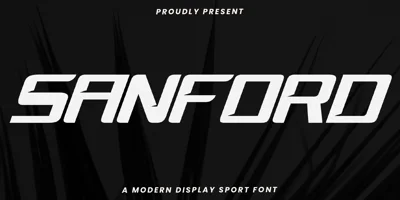
Sanford Font
Sanford Font is perfect for distinguished law firm branding, prestigious academic institution communications, professional medical practice signage, established financial services presentations, traditional corporate headquarters materials, authoritative government documentation, respected consulting firm logos, dignified heritage organization graphics, accomplished professional service marketing, and trustworthy business establishment branding.
What makes Sanford Font so exciting is its extraordinary ability to embody the unwavering reliability and distinguished professionalism that defines America's most trusted institutions through systematically refined letterforms that seem crafted by master typographers who understand that true authority emerges from consistent excellence rather than flashy innovation. This font captures the essence of institutional integrity and professional competence, featuring steadily dignified characters that appear designed to grace the letterheads of establishments that have earned their reputation through decades of faithful service to their communities and unwavering commitment to professional standards. The systematically balanced letter shapes create an atmosphere of established credibility and institutional trust, making every word feel like it carries the endorsement of proven expertise and the promise of reliable service that clients can depend on through changing times and challenging circumstances.
The Sanford Font family includes Light, Regular, Medium, Bold, and Display weights, along with corresponding italic variations and professional decorative elements. Each style maintains the font's distinctive professional character while offering complete versatility for different institutional applications, from subtle legal documentation to commanding corporate headlines that announce the continuation of trusted service and professional excellence.
This distinguished typeface brings authentic institutional professionalism aesthetics to contemporary business projects. The Sanford Font provides designers with an exceptional tool to create memorable brand identities that communicate reliability, professional expertise, and institutional authority. Whether you're developing professional service branding, designing corporate communication materials, or creating established business presentations, this font delivers unmatched credibility and professional appeal.
The expertly crafted letterforms in Sanford Font feature optimal proportions and systematic clarity that ensure perfect performance across all professional applications while expressing the methodical approach and unwavering standards that define successful institutional practice. Each character has been designed to maintain maximum legibility while conveying the substantial reliability and proven competence that separate established professionals from newcomers to their fields. The font's distinctive personality makes it ideal for applications requiring genuine professional authority and institutional credibility.
Professional service and institutional leaders appreciate how Sanford Font effortlessly communicates expertise, reliability, and professional excellence while adapting seamlessly to complex business documentation and multi-platform institutional communications that require typography worthy of the highest professional standards. The comprehensive glyph set includes professional symbols, institutional notation, business elements, and extensive international language support, ensuring global compatibility while maintaining its distinctive Sanford identity. This makes it an invaluable resource for law firms, medical practices, financial institutions, and any organization seeking typography that embodies the fundamental principles of professional integrity, institutional reliability, and the kind of established authority that comes from years of consistent service, ethical practice, and the understanding that true professional success is measured not by momentary achievements, but by the lasting trust earned through patient dedication to excellence and the unwavering commitment to serving clients with competence, honesty, and respect.